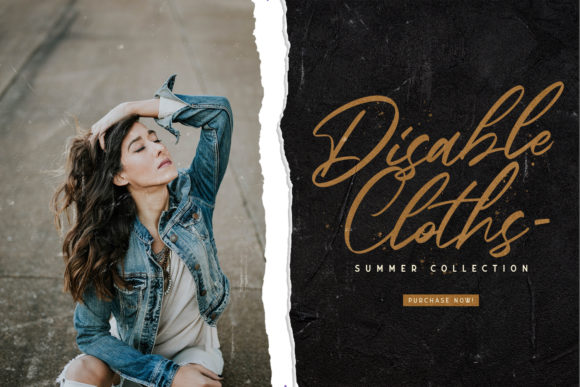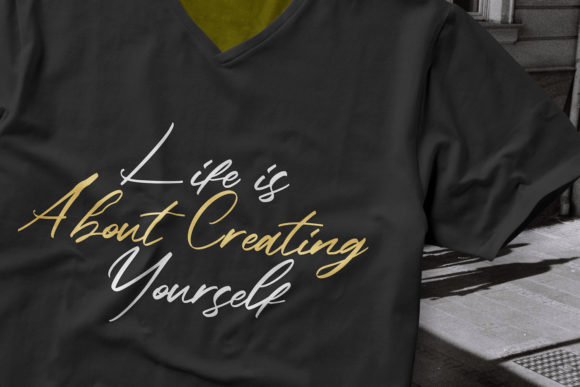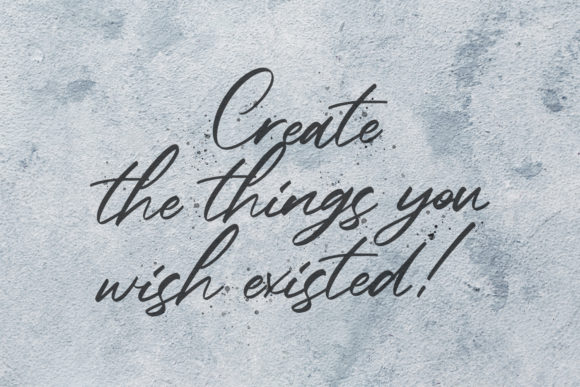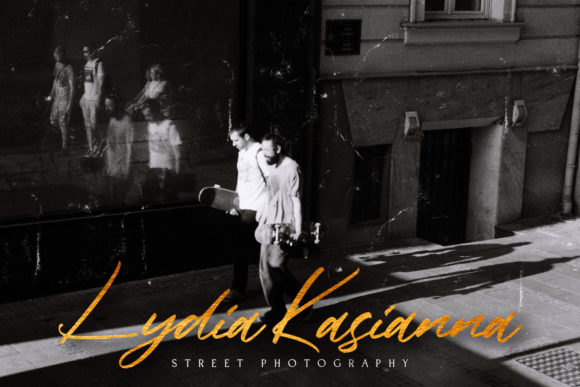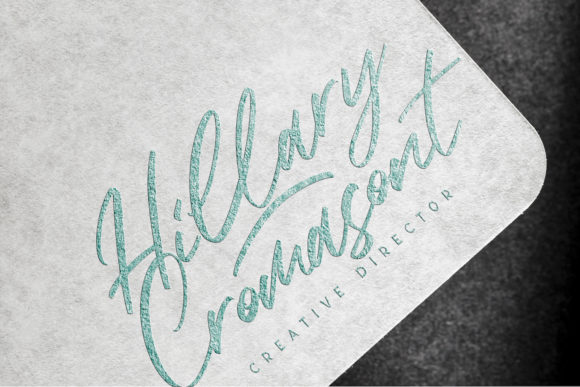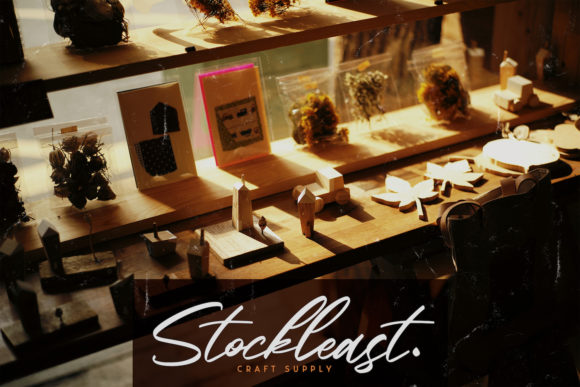
Get Ready to Fall in Love with the Bahisey Font
Do you remember that moment when a particular font catches your eye and sparks a wave of creativity? For many designers, it’s a moment of pure bliss. You see a font, and suddenly, an idea pops up – a new project, a fresh logo, or a stunning invitation. That’s exactly what happened when we discovered the Bahisey Font. Its elegant and modern script style is sure to elevate your design projects to the next level.
The Bahisey Font is a versatile tool for designers, perfect for branding, headings, wedding designs, invitations, signatures, logos, labels, and much more. Its unique style will help you stand out from the crowd and create truly spectacular designs. Whether you’re a seasoned designer or just starting out, the Bahisey Font is an essential addition to your toolkit.
Bahisey Font Key Features
- Unique Characteristics: The font features a unique blend of modern and traditional elements, making it perfect for creating a distinctive and eye-catching visual identity.
Bahisey Font Review
I recently had the chance to work with the Bahisey Font, and I must say it’s an interesting choice. The font has a unique, modern look that can add a touch of elegance to any design. ✨ Here are a few things that worked well for me:
- Its versatility: Bahisey Font can be used in a variety of contexts, from body text to headings.
- Customizable: The font has several styles and weights to choose from, making it easy to adapt to different design needs.
- Legibility: Despite its unique design, Bahisey Font is surprisingly easy to read, making it a great choice for longer blocks of text.
However, I did encounter a few limitations. ⚠️ Here are some things to keep in mind:
- May not be suitable for very small text sizes: At smaller sizes, the font’s intricate details can become difficult to read.
- Can be overwhelming: With so many styles and weights to choose from, it can be easy to overuse the font and create a busy, overwhelming design.
Overall, I think the Bahisey Font is a solid choice for designers who want to add a touch of sophistication to their designs. While it may have some limitations, its unique look and versatility make it a great addition to any font library.
Bahisey Font is ideal for creating elegant and sophisticated designs. Here are some tips and common use cases:
- Use Bahisey Font for headings and titles to add a touch of sophistication.
- Combine Bahisey Font with other elegant fonts for a unique and stylish look.
- Use Bahisey Font for invitations, wedding stationery, and other formal events.